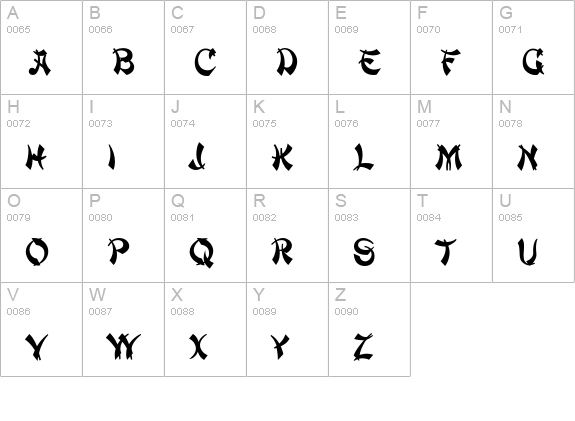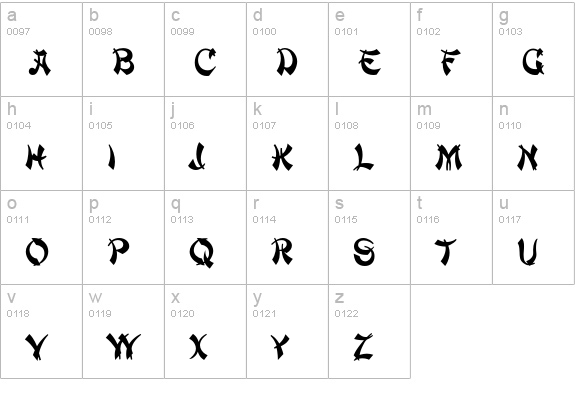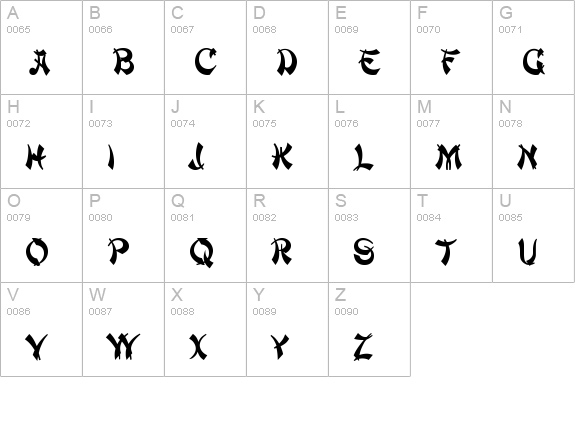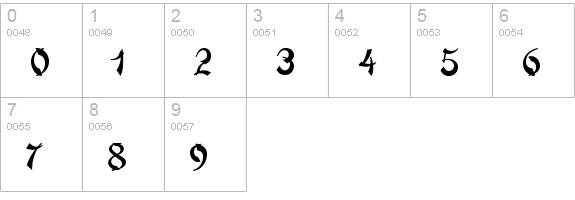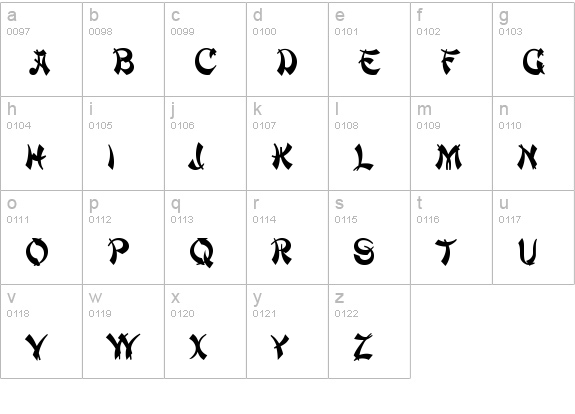
MandarinEF Font Details
Introducing MandarinEF, a stunningly elegant font that effortlessly combines the beauty of Mandarin characters with a modern twist. Designed with meticulous attention to detail, MandarinEF offers a harmonious blend of traditional calligraphy strokes and contemporary design elements. This font showcases the timeless beauty of Mandarin characters, capturing the essence of Chinese culture and heritage. Each stroke is carefully crafted to exude grace and elegance, creating a visually captivating experience for readers. MandarinEF is not only visually appealing but also incredibly versatile. Whether you're designing a logo, creating a poster, or crafting a unique branding identity, this font will elevate your project to new heights. Its clean lines and balanced proportions make it legible at any size, ensuring readability across various mediums. One of the most remarkable features of MandarinEF is that it is freely available to download at FontsMarket.com. This means that you can enjoy the sheer beauty and versatility of this font without any cost or limitation. Now, you can effortlessly incorporate the charm of Mandarin characters into your designs, without breaking the bank. MandarinEF is a font that effortlessly combines tradition with innovation, creating a visual masterpiece that will leave a lasting impression. Whether you're a graphic designer, a typographer, or simply someone who appreciates the art of typography, MandarinEF is a must-have addition to your collection. So why wait? Visit FontsMarket.com today and embark on a journey of creativity with MandarinEF. Experience the seamless blend of ancient traditions and contemporary design, all at the convenience of a free download. Let MandarinEF breathe life into your designs, and watch as they come alive with beauty and sophistication.